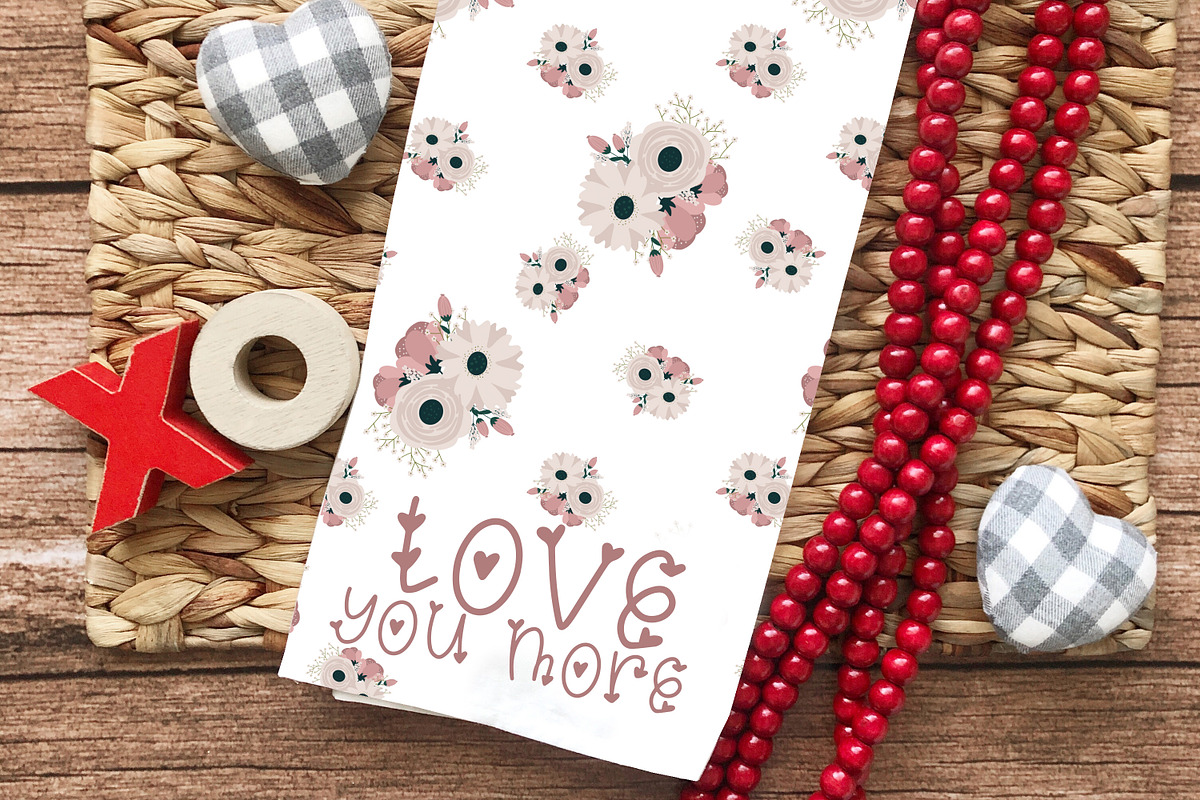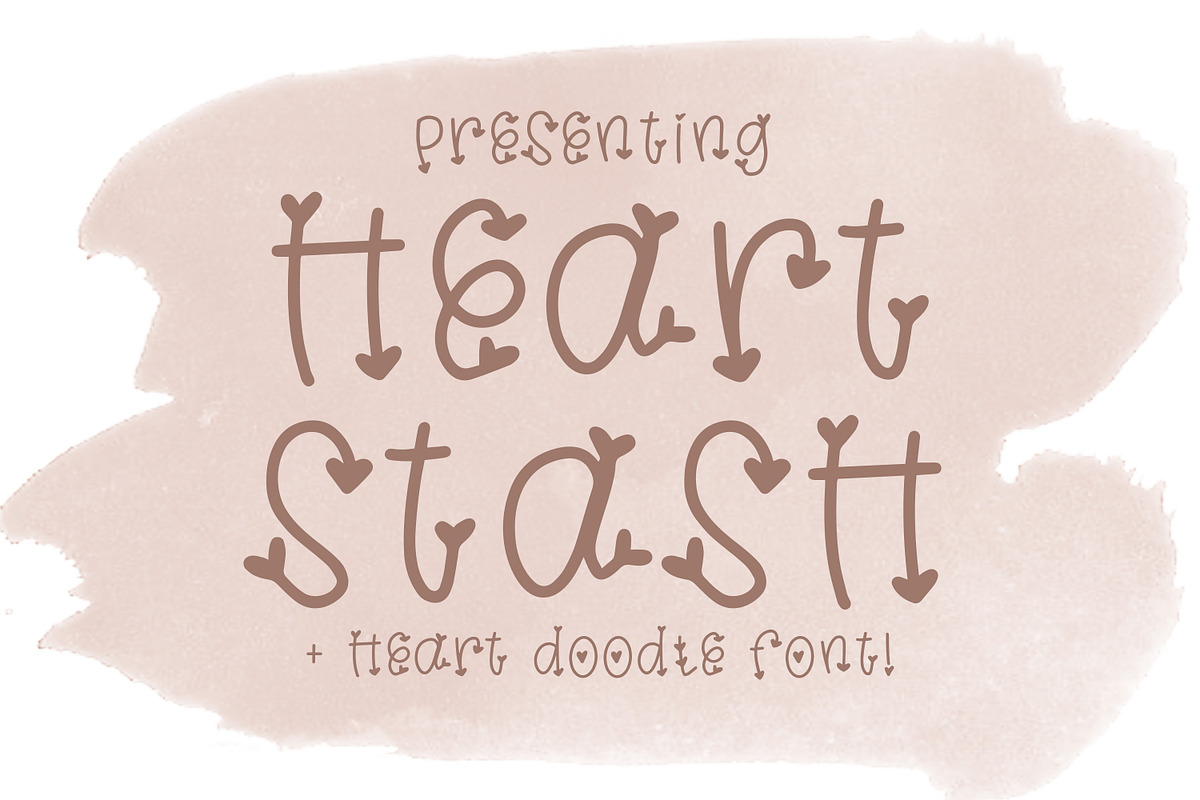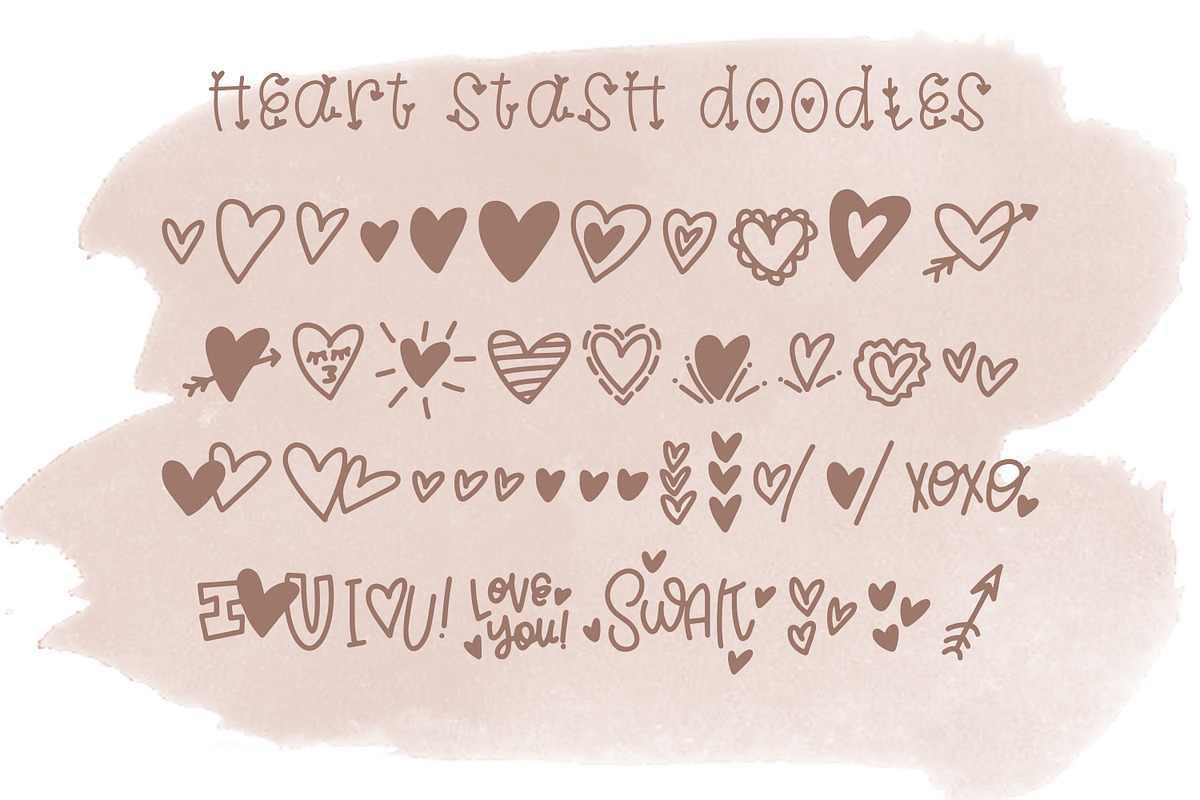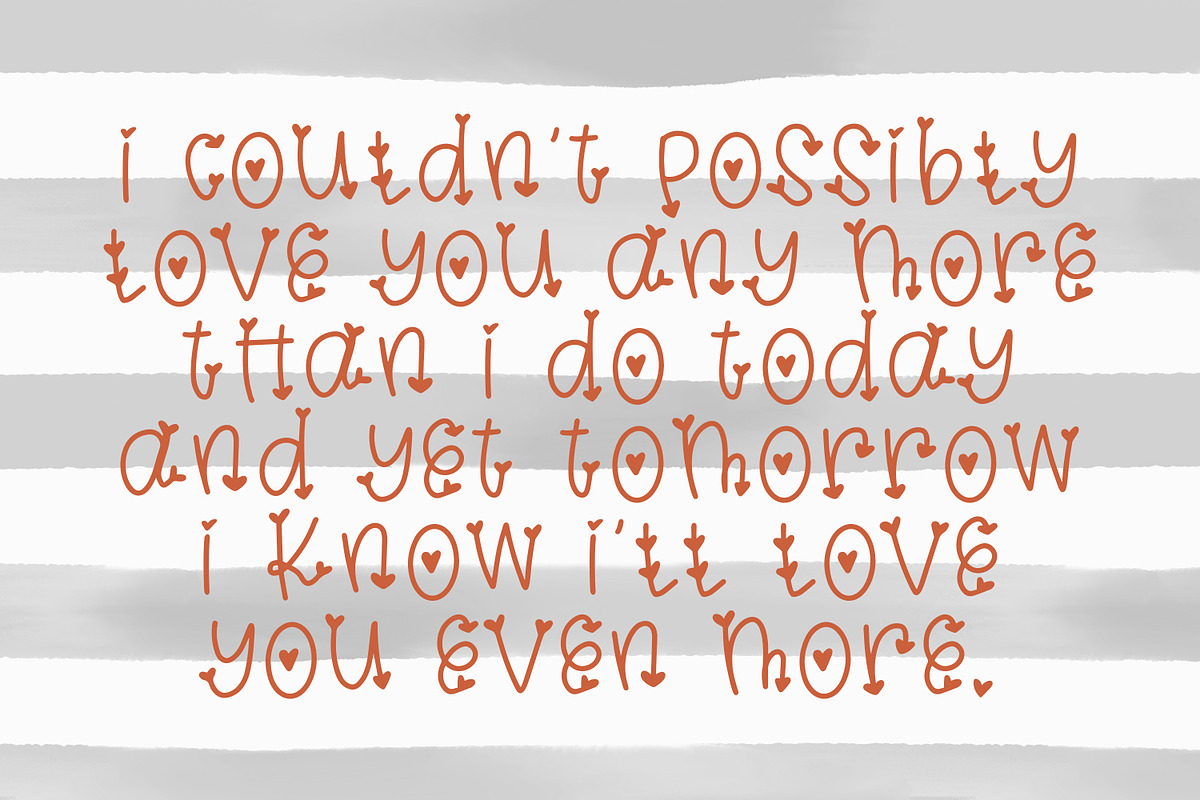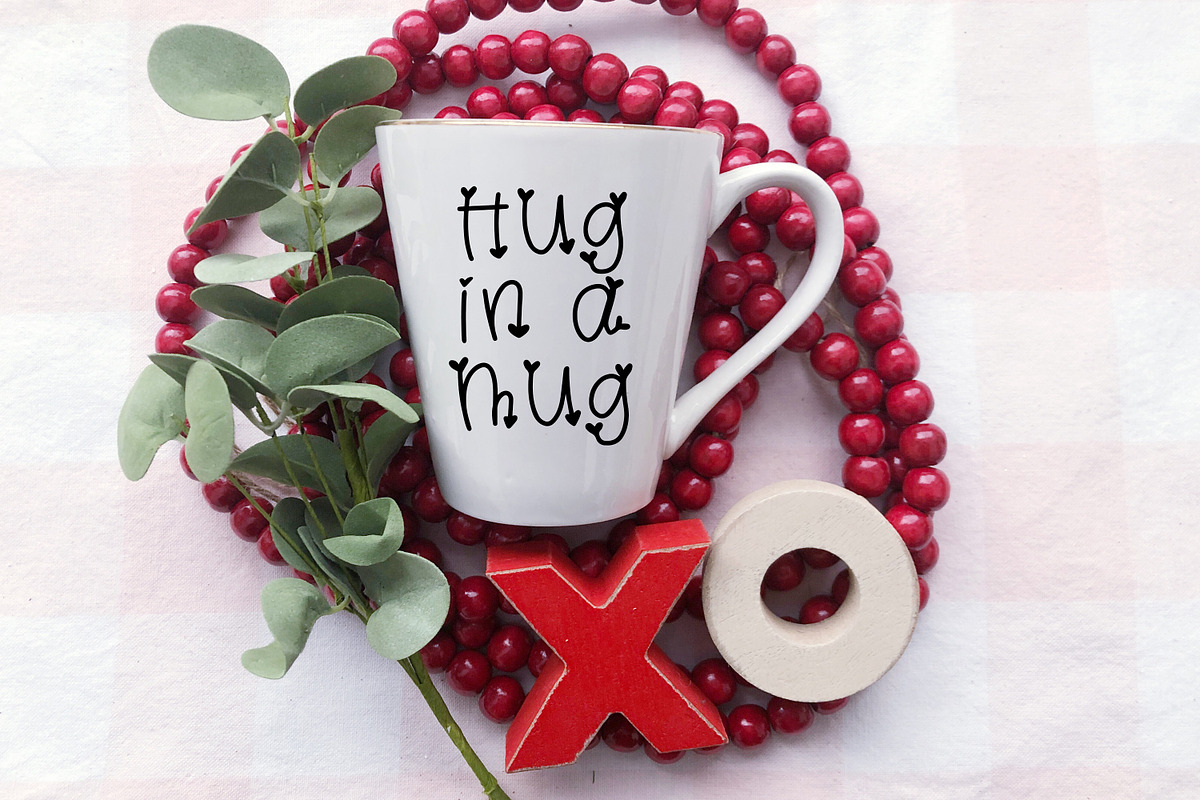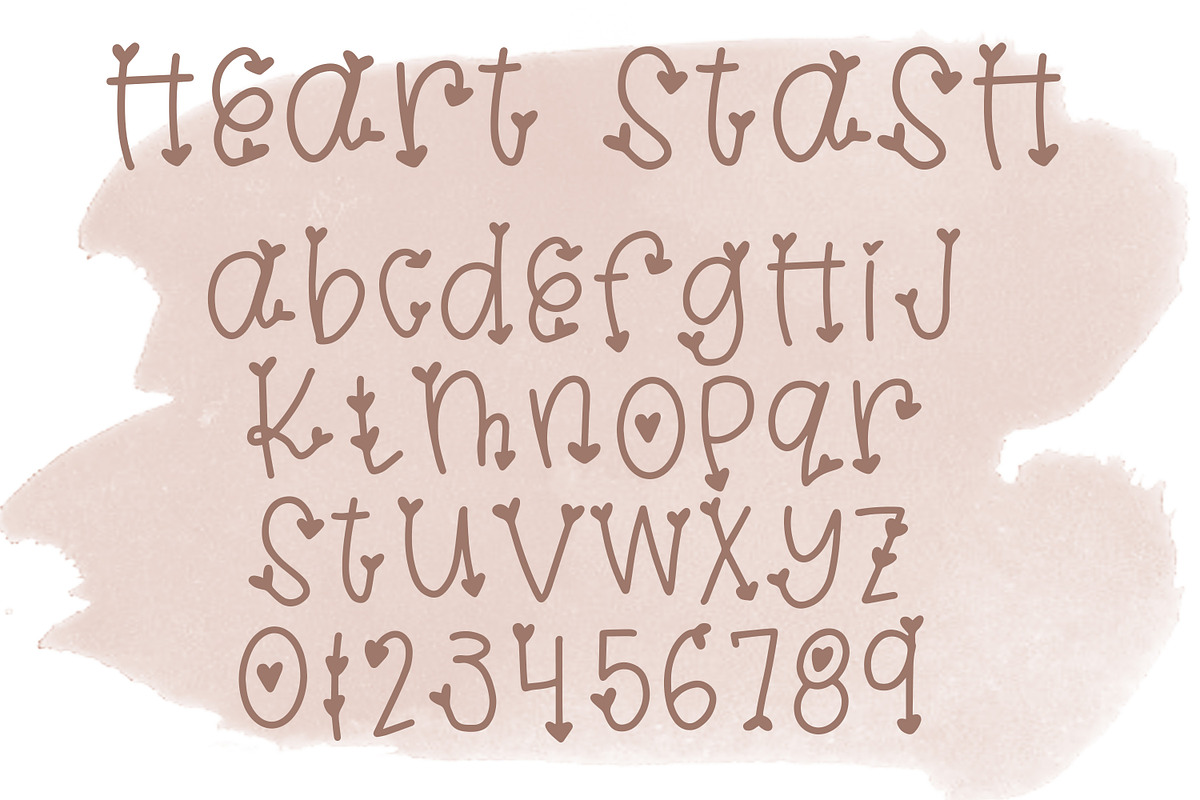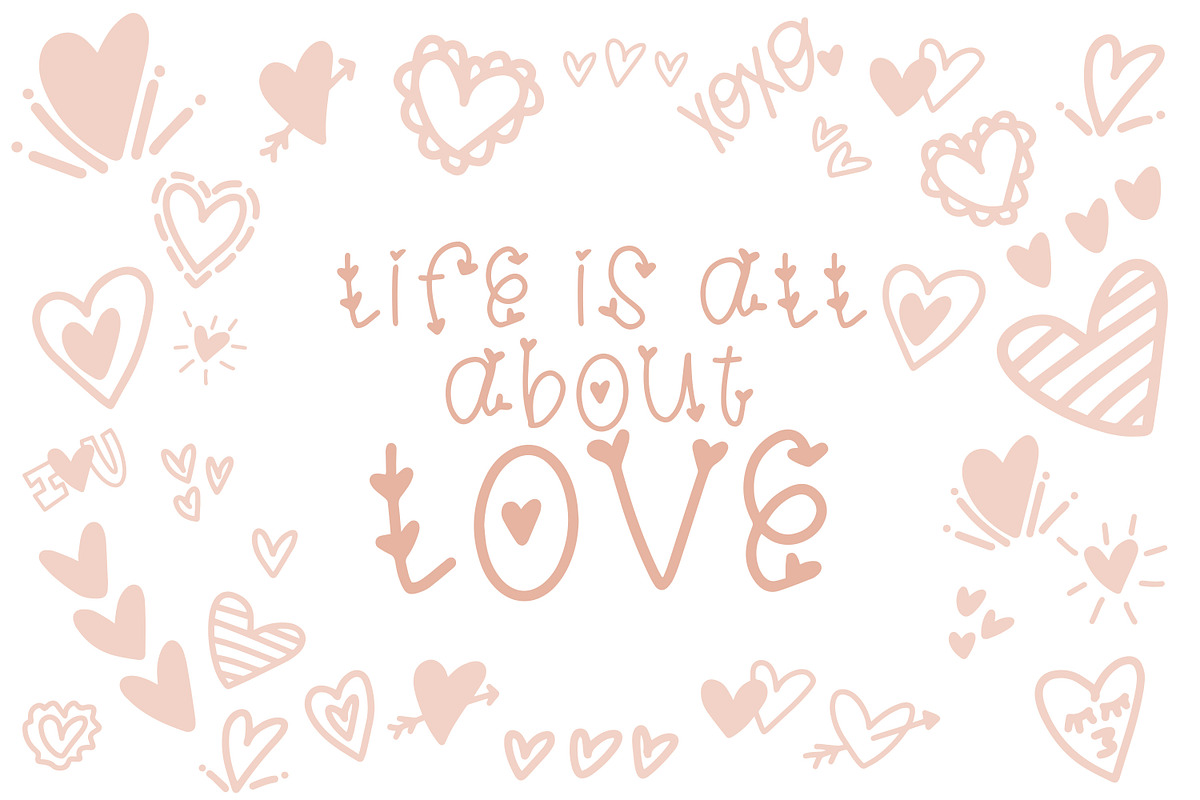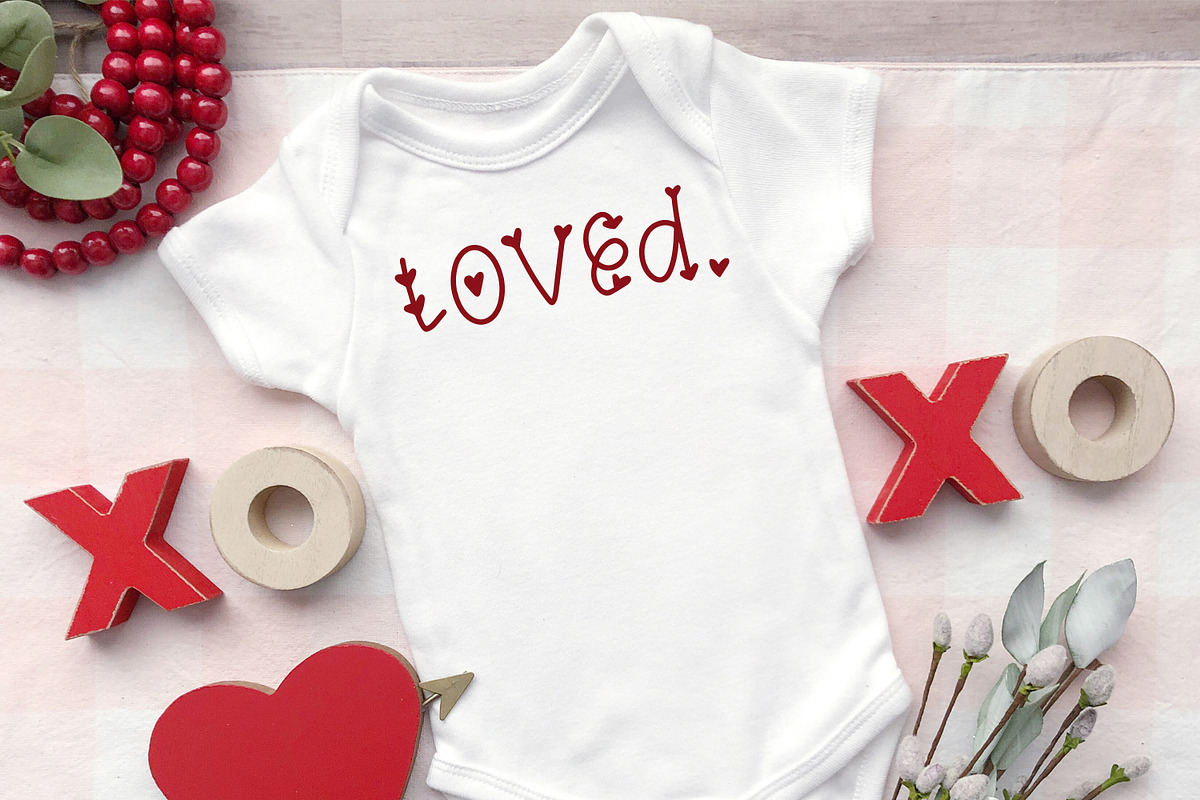
Heart Stash Font with Heart Doodles!
Heart Stash is a fun heart fonts with hearts on each letter! This hand-lettered font and included hand-drawn symbols font is a one of a kind, cute and lovey dovey font! You will love the hearty letters, and the coordinating heart doodles to add variety to all your projects!